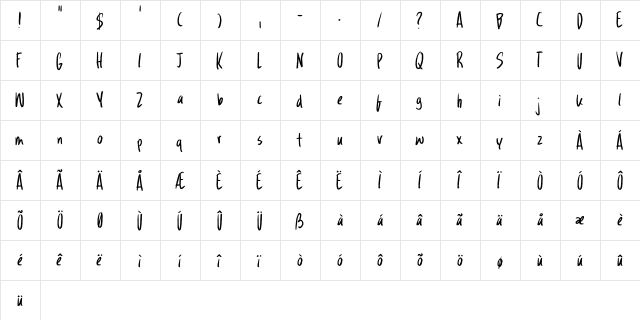
Wandering Pencil DEMO Regular
| Foundry | David Kerkhoff |
| Designer | David Kerkhoff |
Design Context for Wandering Pencil DEMO Typeface
Wandering Pencil DEMO is a composed and adaptable typeface that performs quietly and consistently across a wide range of design contexts.